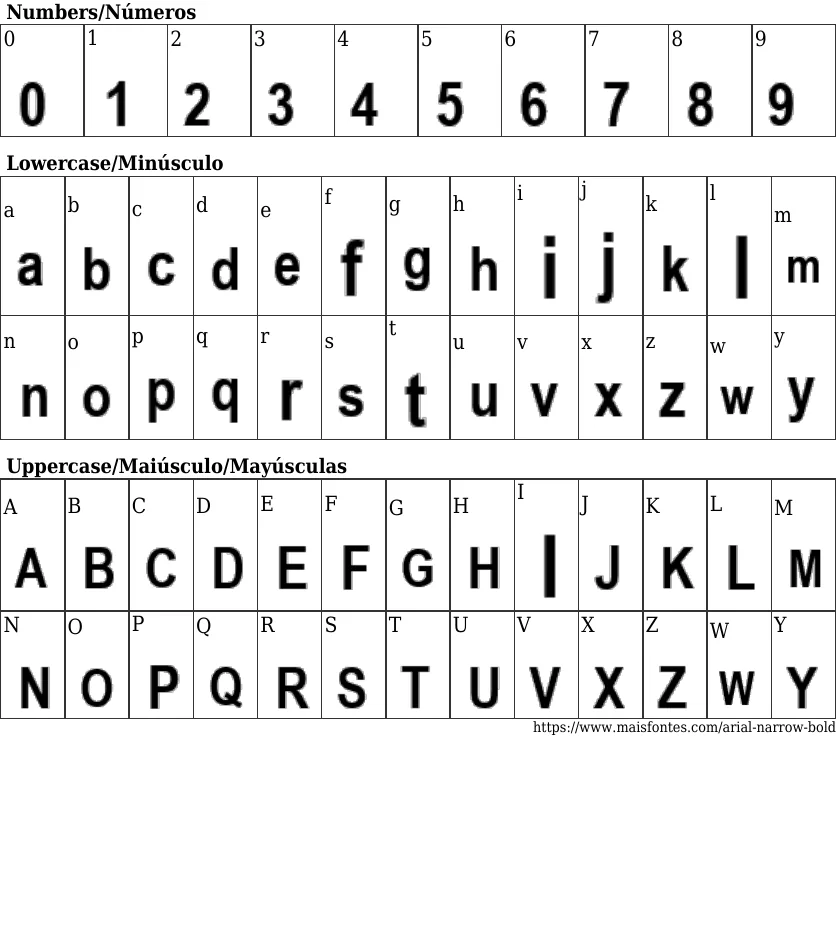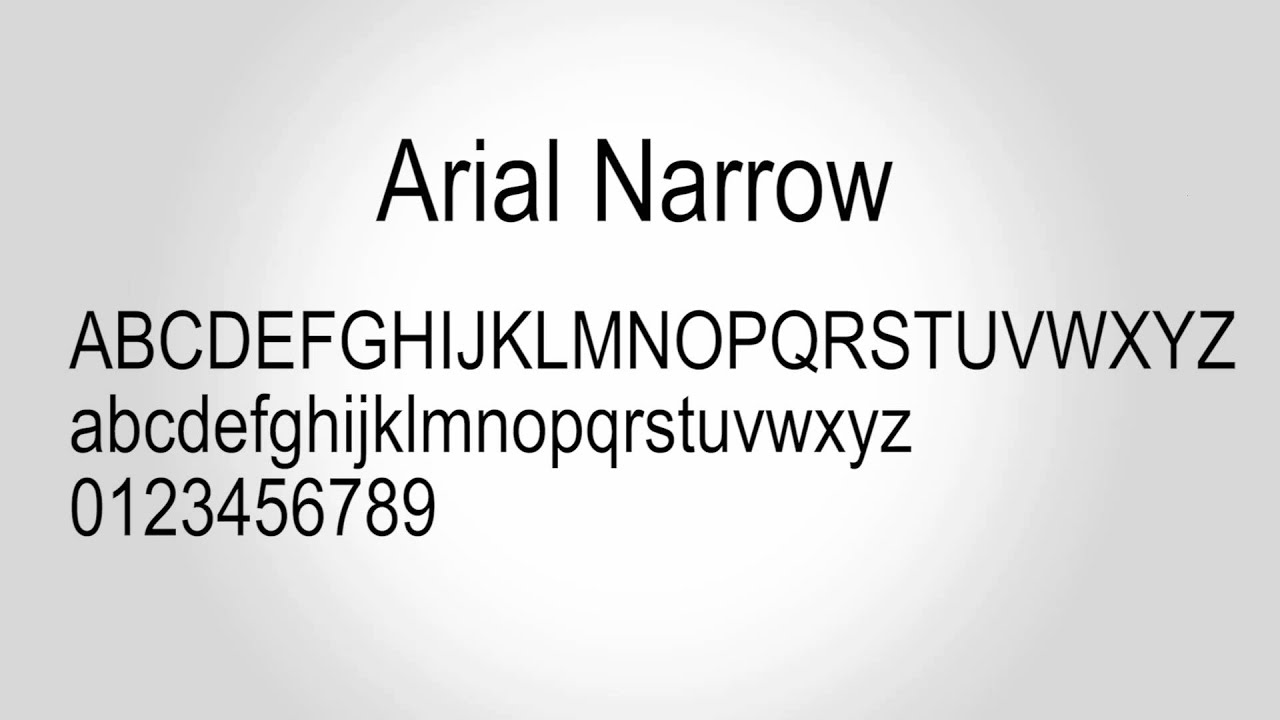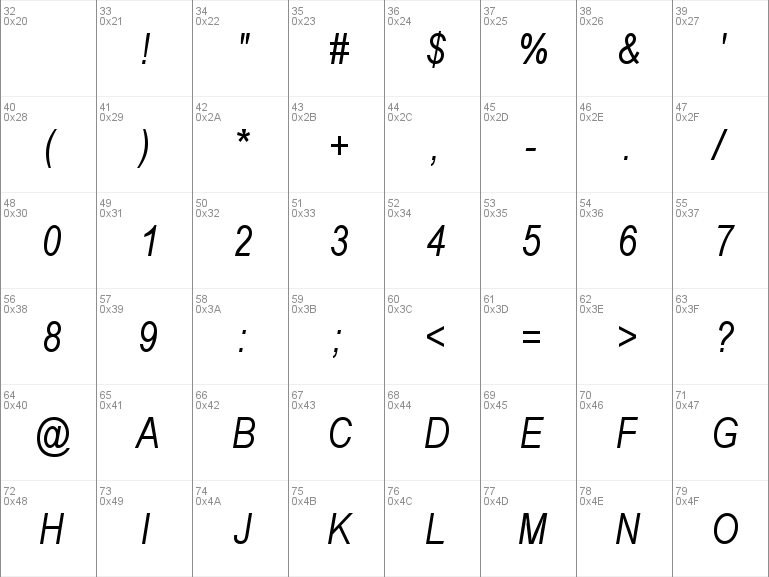
Arial narrow bold version 2.20 font (font family name: Arial narrow bold font, bold version 2.30.
About the font arial narrow mt std.
The font family is arial narrow. About the font arial narrow italic. Pixelated font generator about fonts pool text generator is an amazing tool, that help to generate images of your own choice fonts.
About the font arial narrow bold. 76 search results (0.015 seconds) arial by monotype 35.00 usd. This paragraph is in arial narrow.
If you don't have it you can try some similar fonts here: This paragraph is in arial. Arial is an extremely versatile family of typefaces which can be used with equal success for text setting in reports, presentations, magazines etc, and for display use in newspapers, advertising and promotions.
You can use the arial narrow bold to create interesting designs, covers, shop and store name and logos. You can use the arial narrow italic to create interesting designs, covers, shop and store name and logos. It was released in 1982 by monotype and although commonly thought of as a helvetica ripoff, arial was primarily influenced by monotype grotesque, a typeface released 31 years before helvetica.that being said, arial was also designed to be metrically compatible with helvetica, so it shares.
If you don't see hebrew supplemental fonts in the list of installed features, click the plus sign ( +) to add a feature. Arial narrow bold is free for personal use only. Arial mt narrow bold is free for personal use only.
Preview your fonts your headline is in arial this is a sub heading in arial. The font family is arial narrow. A contemporary sans serif design, arial contains more humanist characteristics than many of its predecessors and as such is more in tune with the mood of the last decades of the twentieth century.
(cookies must be enabled in your browser.) Arial narrow italic is free for personal use only. Bold), 694 characters in total.
Although we have the largest database of fonts, the search for a font from an image gets mixed results like the image above. Arial narrow bold italic truetype font download free arial narrow bold italic font (135 kb) arial narrow bold italic font custom preview tool. Font meme is a fonts & typography resource.
All fonts can be downloaded for free at fontyukle. Hp arial narrow bold is free for personal use only. · how to solve the compatibility problem of different names in different os?